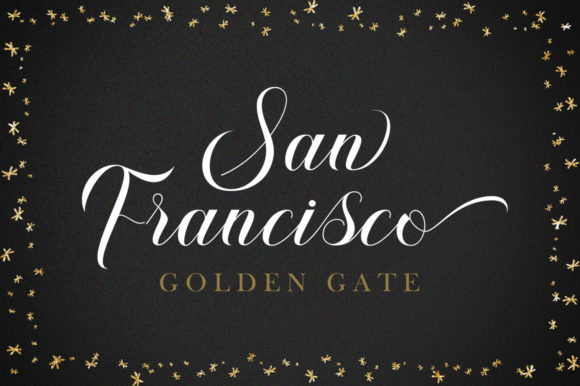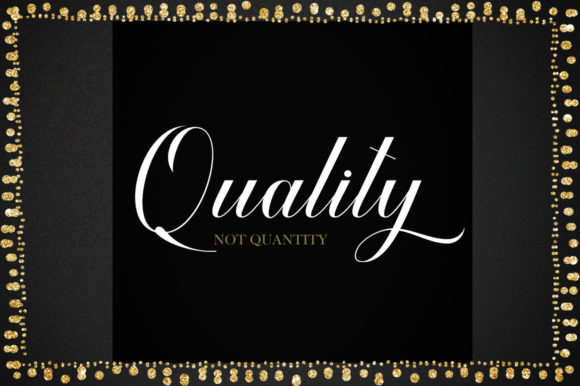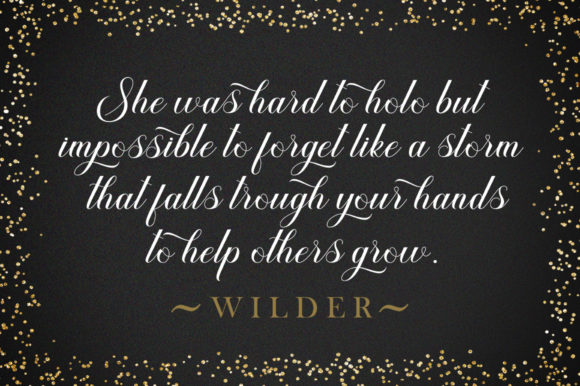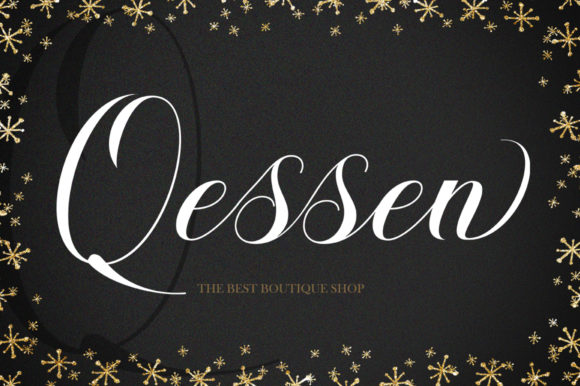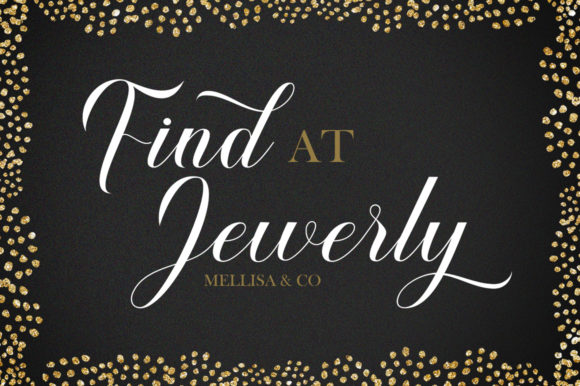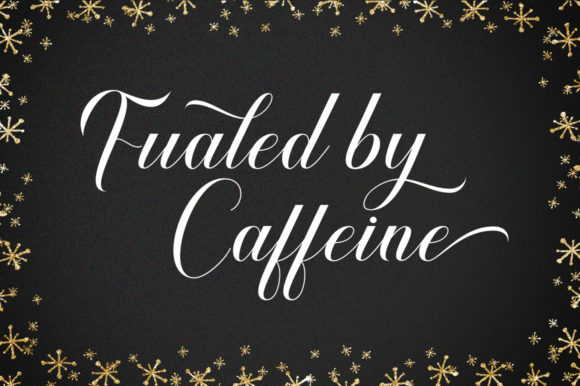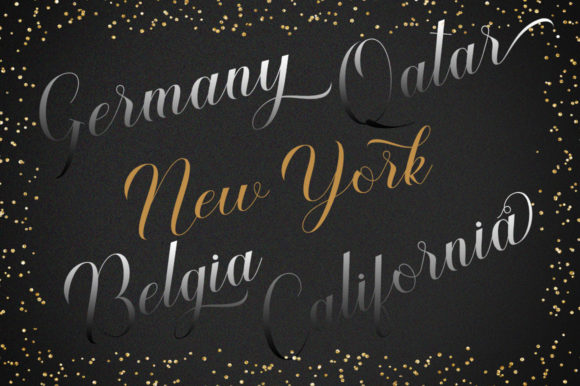
Silfer Queen Font
About Silfer Queen Font
Introducing Silfer Queen Script, a vintage calligraphy font.This is a classic thin font with an italic style. This stylish font will make your work look elegant and clean.